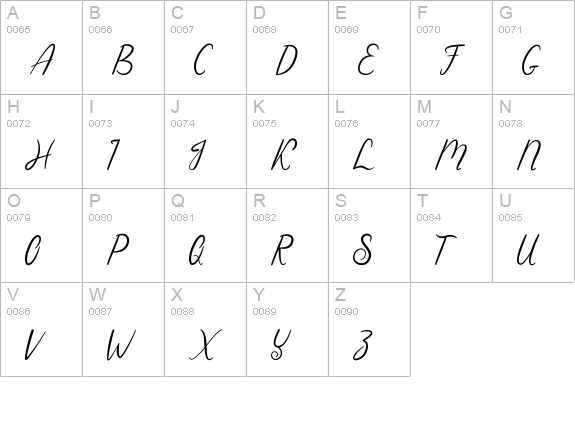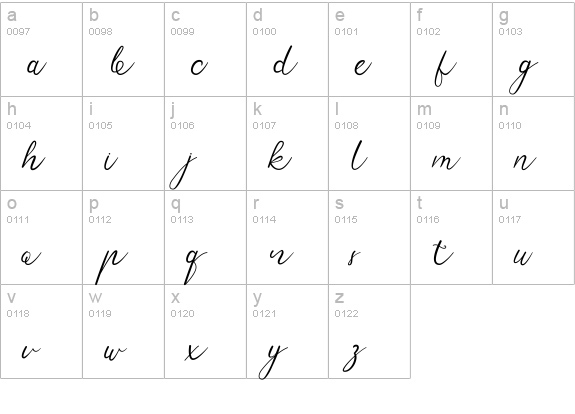
Sensitype is a demo font in the Script > Calligraphy category, designed by Ef Studio. It has been downloaded 102 times and is available for Windows, Mac and Linux.
Sensitype font is a modern and stylish typeface that effortlessly combines elegance with a touch of playfulness. Its sleek lines and sophisticated curves make it perfect for a wide range of design projects, from branding to editorial work. The versatility of Sensitype font allows it to seamlessly transition from bold headlines to delicate body text, ensuring your message is always delivered with impact.